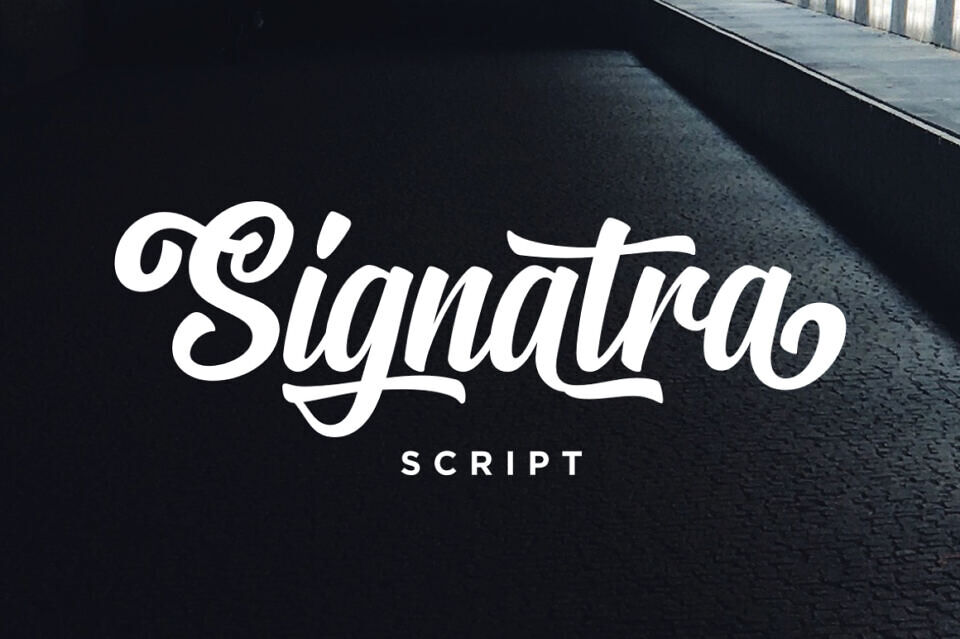
Signatra Script Font
A clean and playful yet trendy typeface, Signatra is crafted with high attention to all the little details. This clean and bold script is mouse-crafted from scratch with high attention to the details; offers you a natural hand-lettering/signpainting experience.
Suits best for logotype, poster/t-shirt designs, food/beverage labels, greeting cards, quote-writing-designs, apparel/t-shirt designs, wedding invitations, and many more.